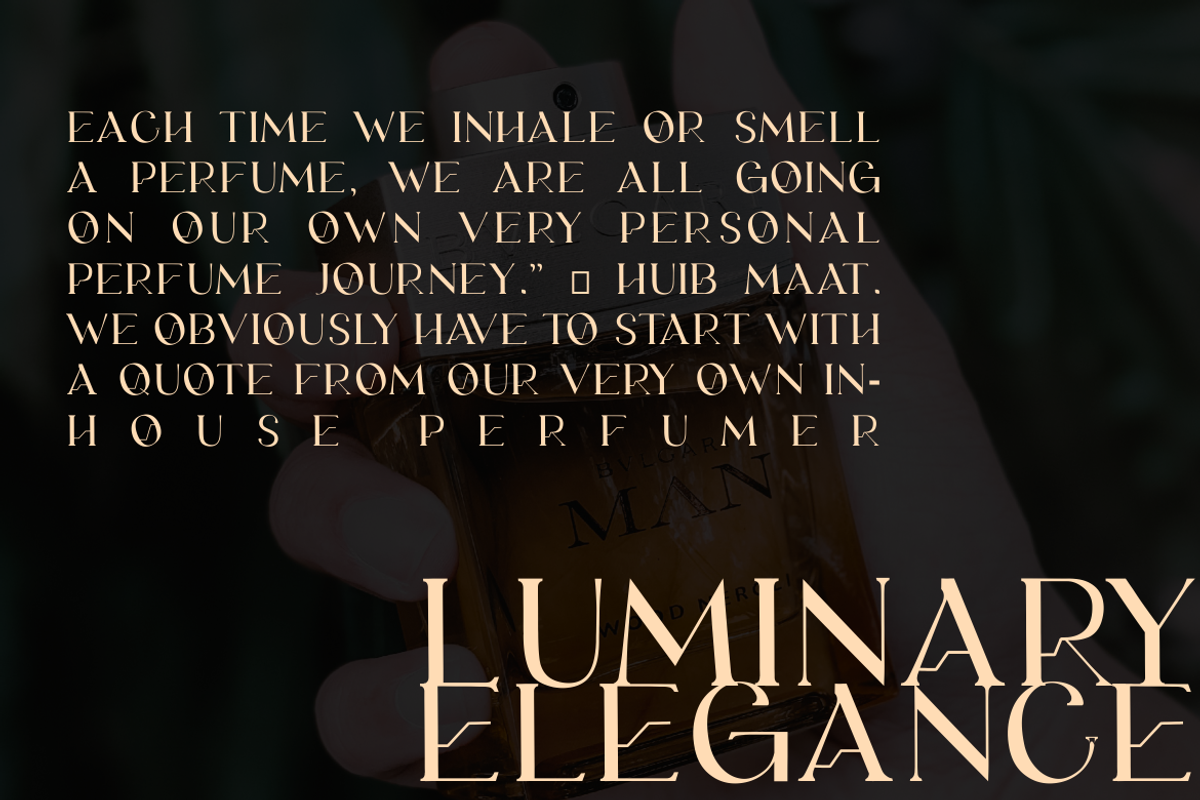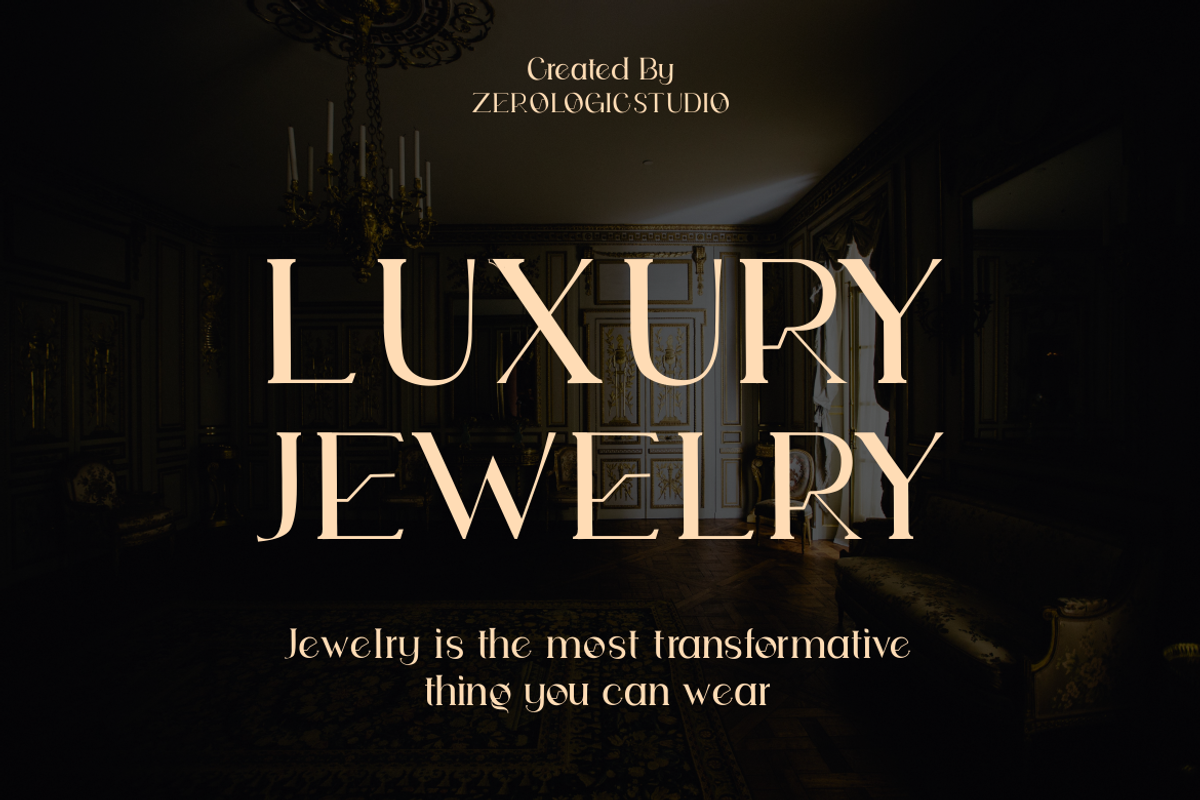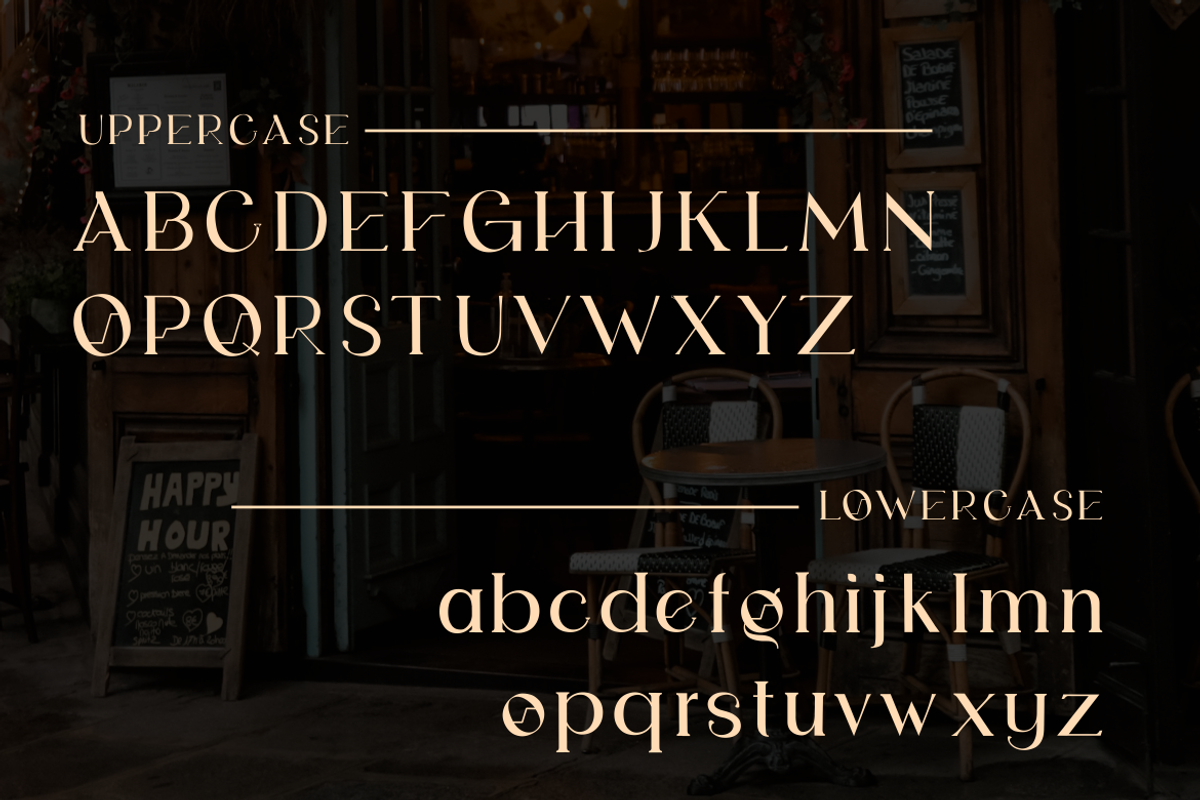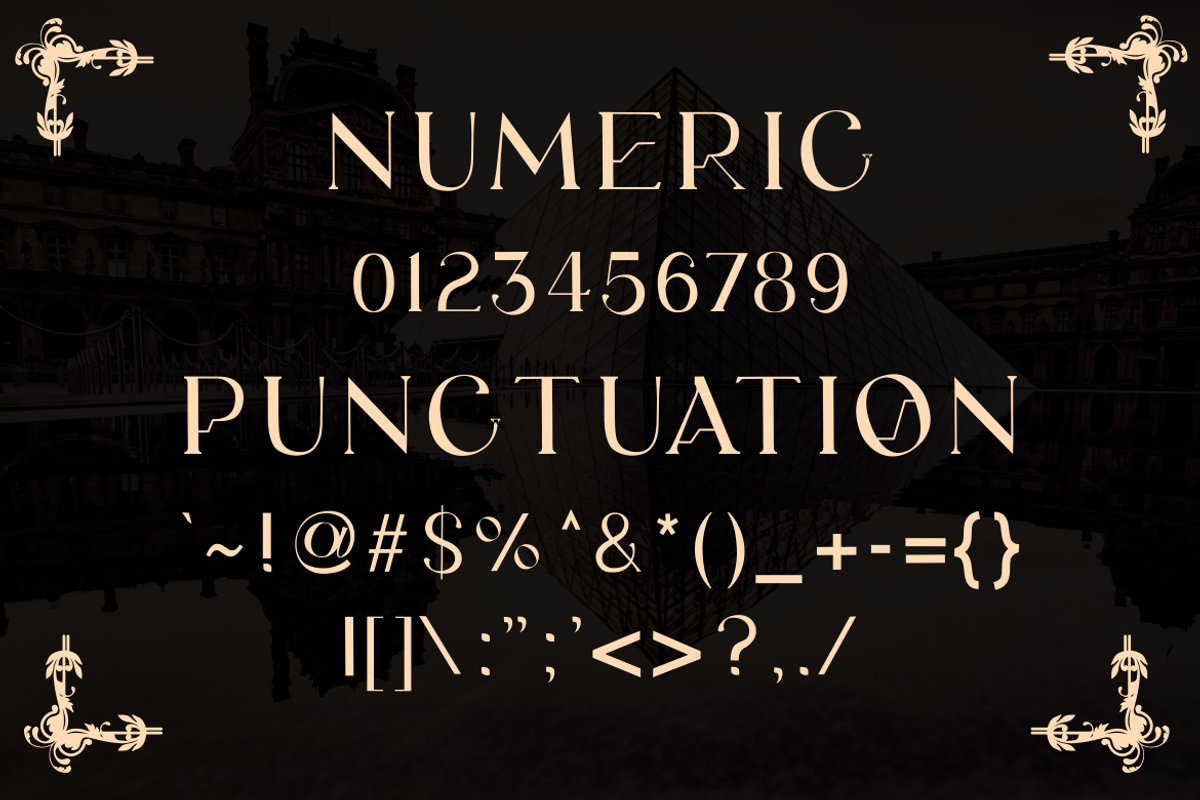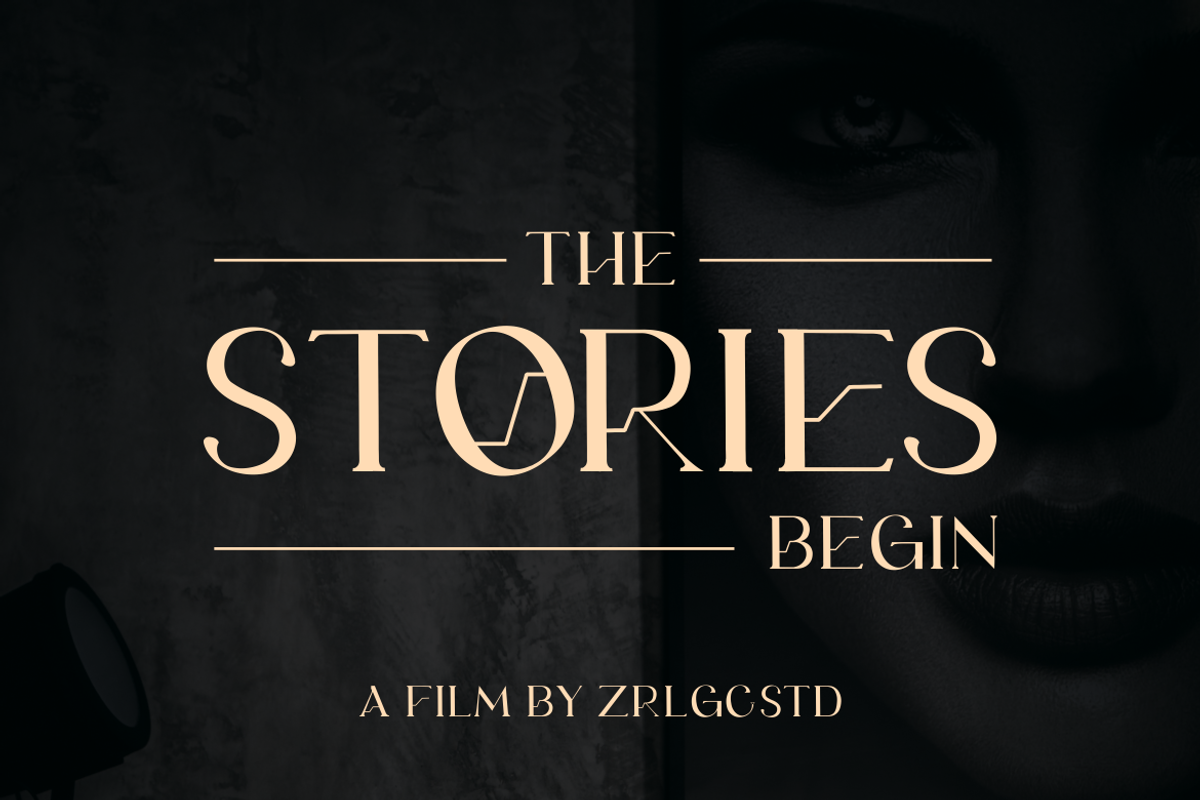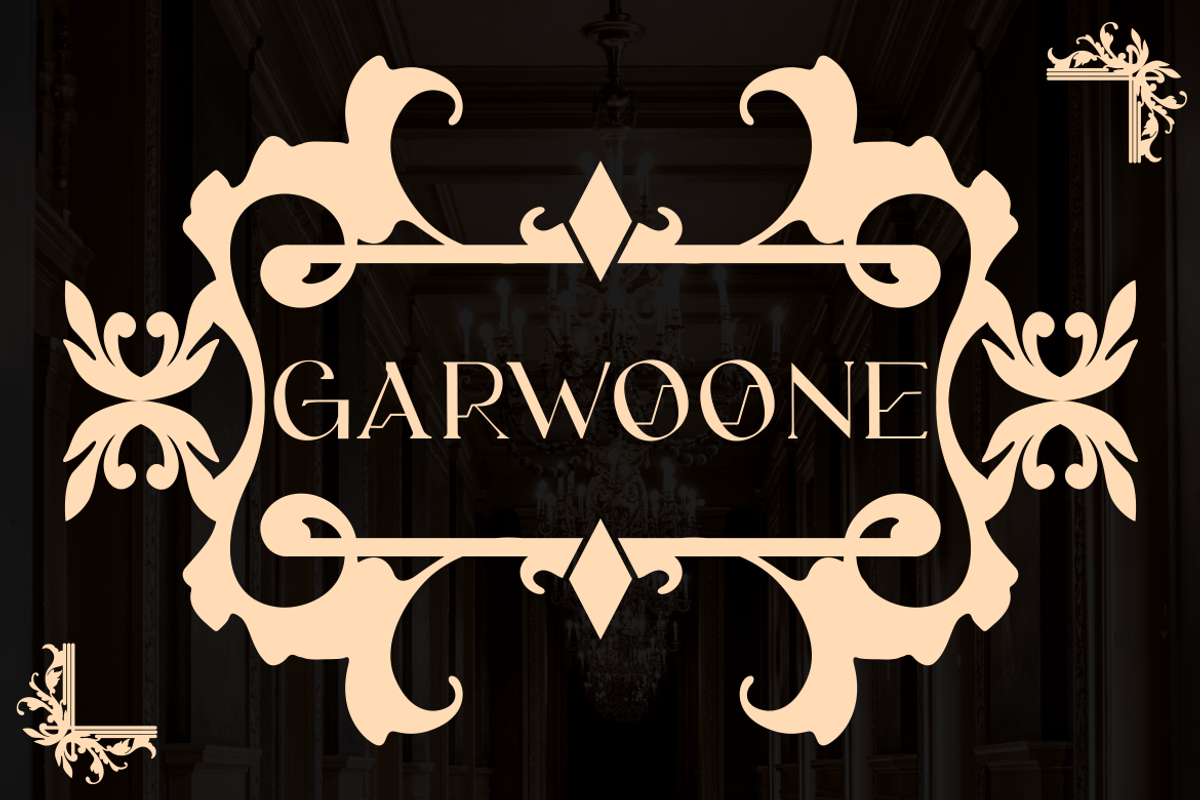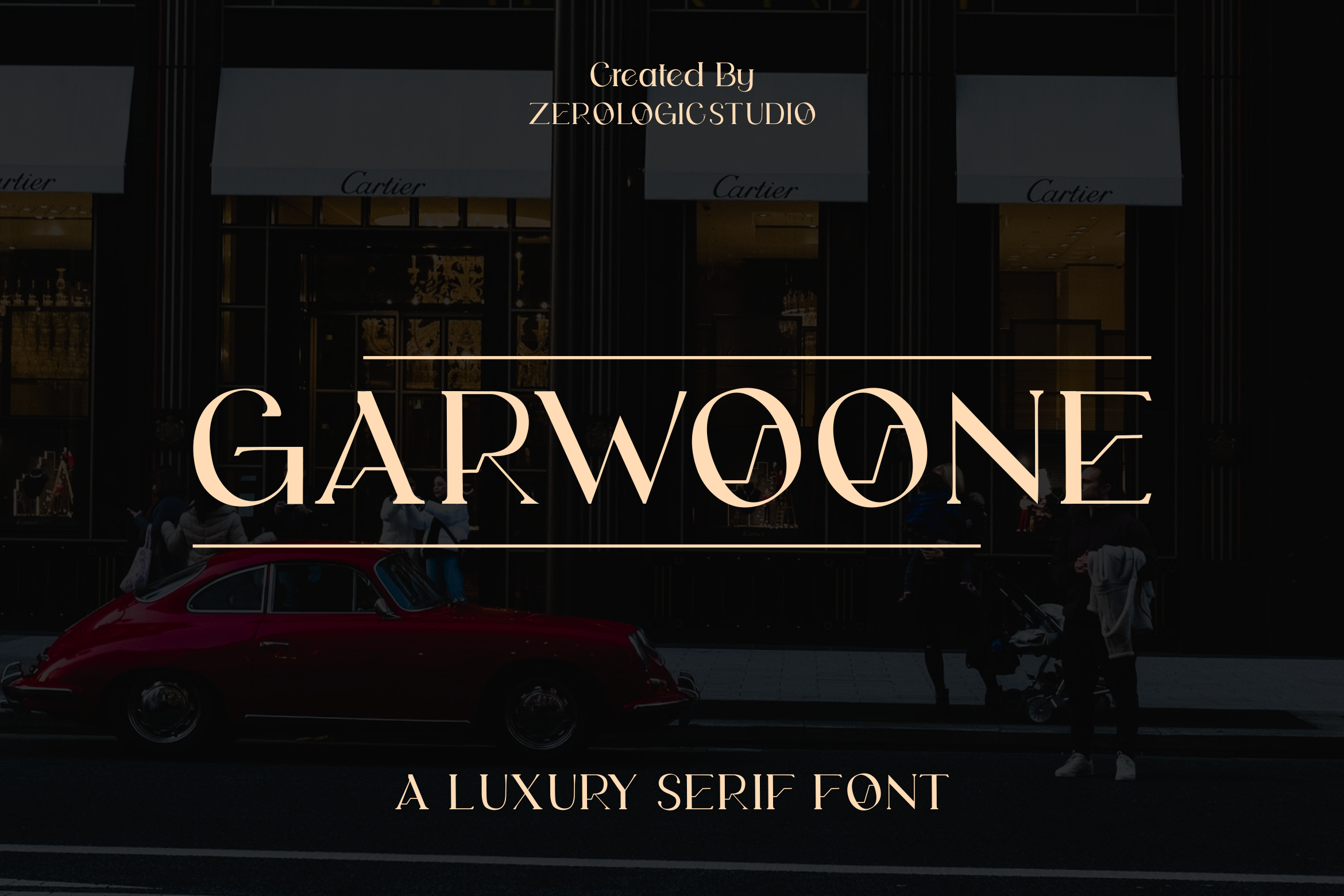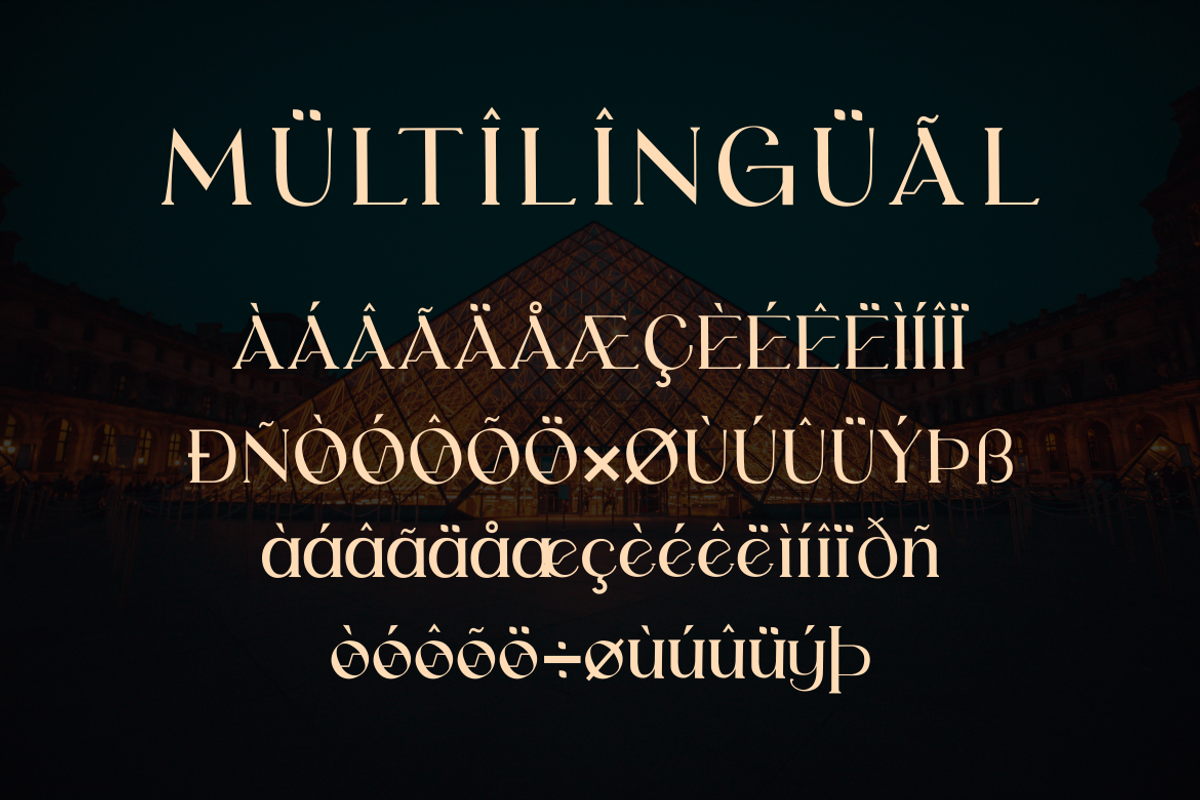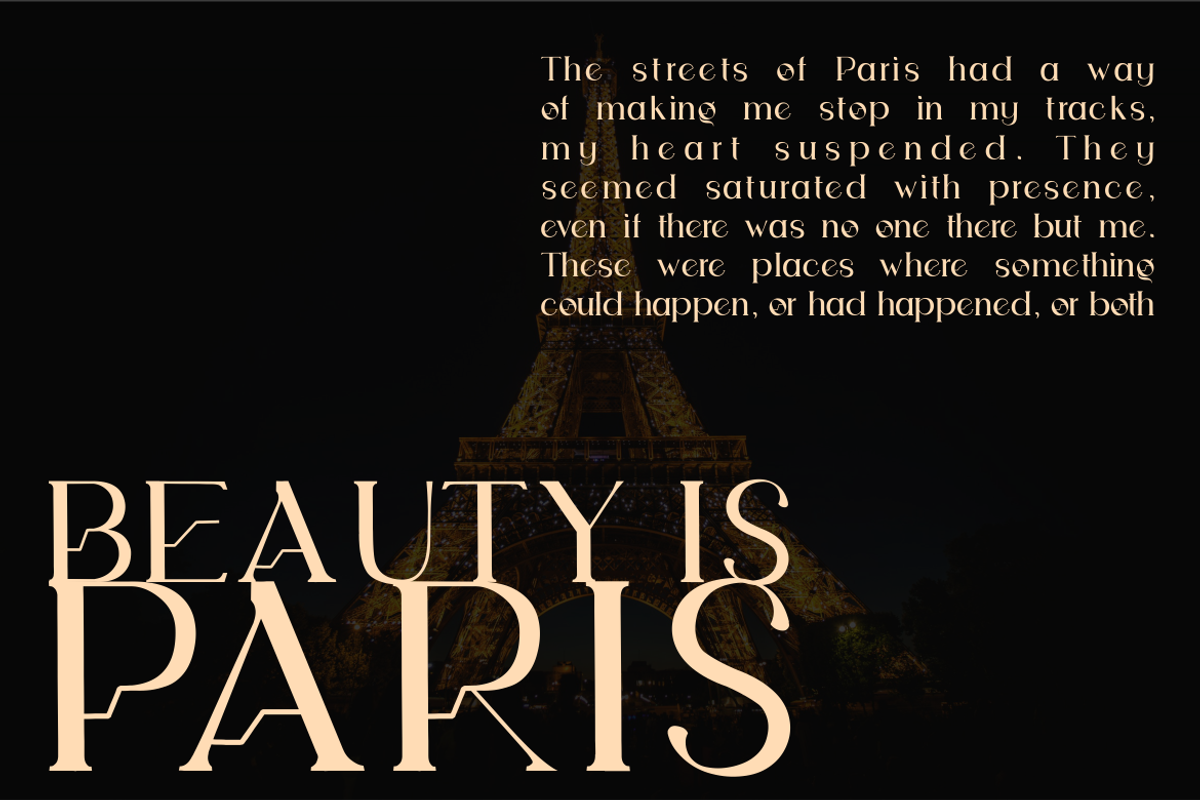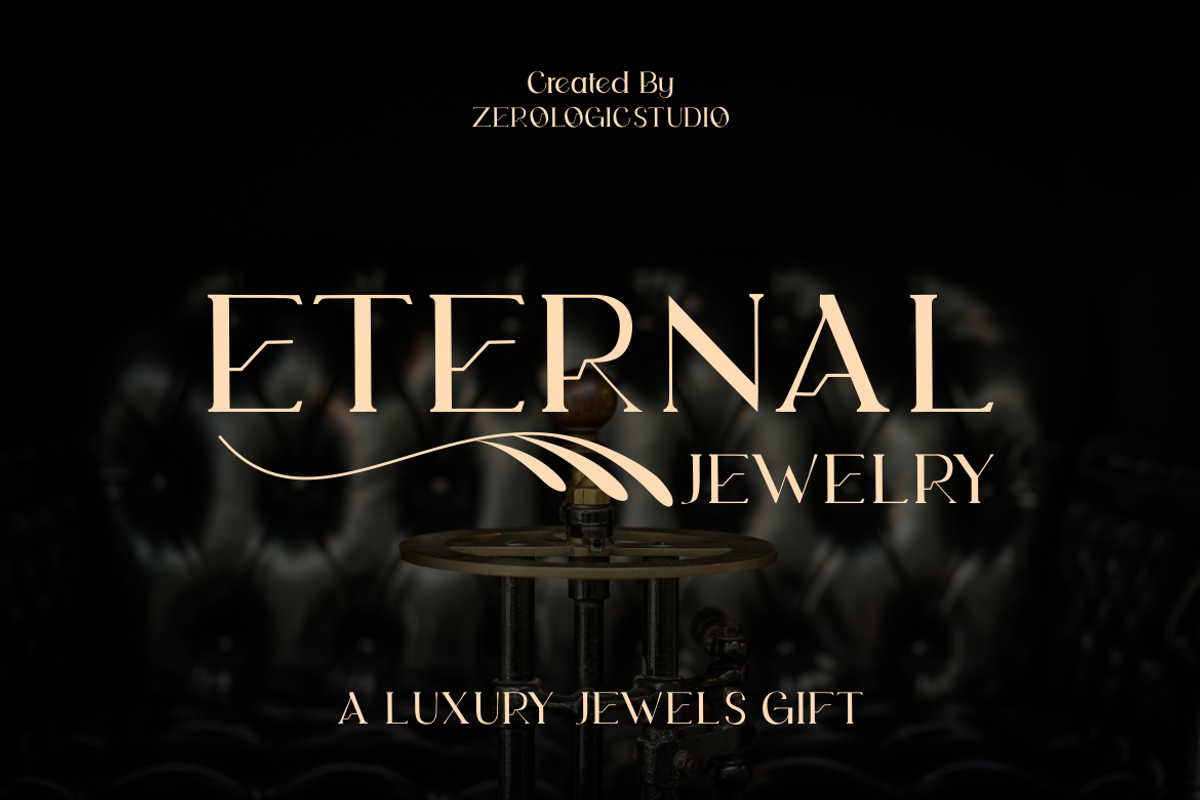
Garwoone Luxury Serif Font
GARWOONE is modern and luxury serif font that we designed with original touch for your needs. This cool font is complete with Uppercase, Lowercase, Numeric & symbols. This very strong and sharp font is perfect for titles, typography, posters, magazines, brochures, packaging, Websites and much more for your design needs, making your designs more cool.